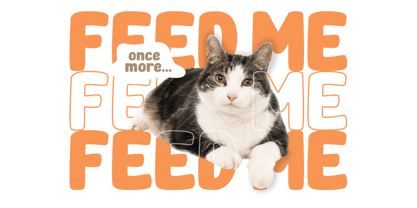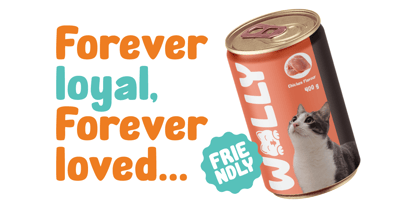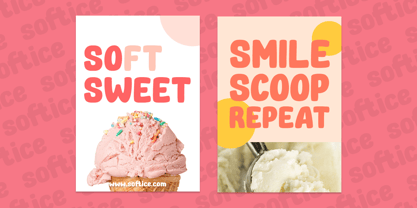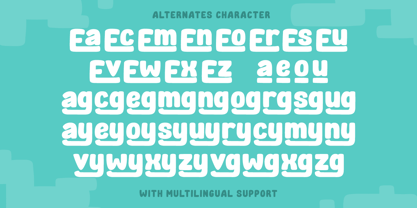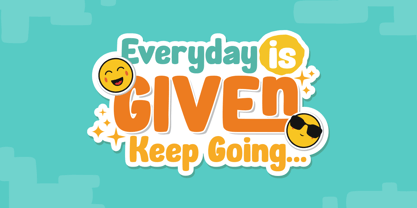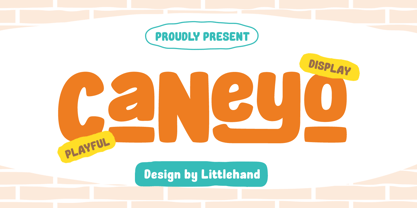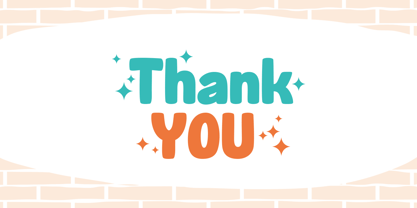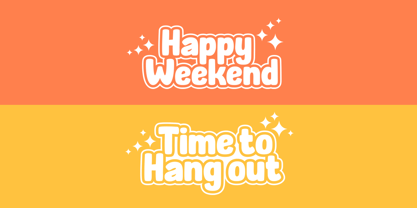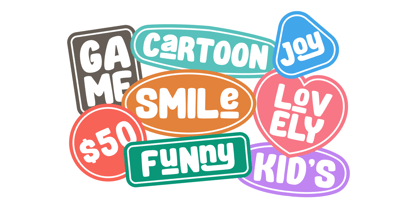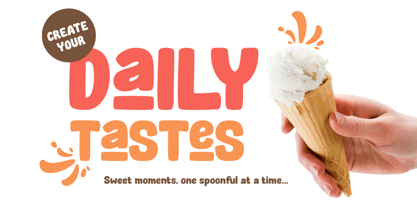
Caneyo
Caneyo is a bold playful font that brings instant fun to the page. With chunky shapes, soft corners, and bouncy letterforms, it feels friendly, confident, and full of energy—like colorful cut-paper titles on a creative board. The thick strokes give strong visibility, while the rounded details keep everything warm and approachable. Caneyo works beautifully for eye-catching headlines, kids projects, posters, branding graphics, packaging titles, social media visuals, and any layout that needs a happy, standout voice with a modern pop twist. Features : Uppercase & lowercase Numbers and punctuation Alternates & Ligatures Multilingual Support PUA encoded
Littlehand is a collective type foundry based in Yogyakarta, Indonesia, focused on designing playful, cute, and cheerful fonts. As part of the Letterhend studio, Littlehand was created as a dedicated space to explore friendly and expressive typography with a warm and approachable character. Littlehand’s typefaces are thoughtfully crafted to support creative projects that value joy and personality, including children’s designs, branding, packaging, social media, and visual storytelling.